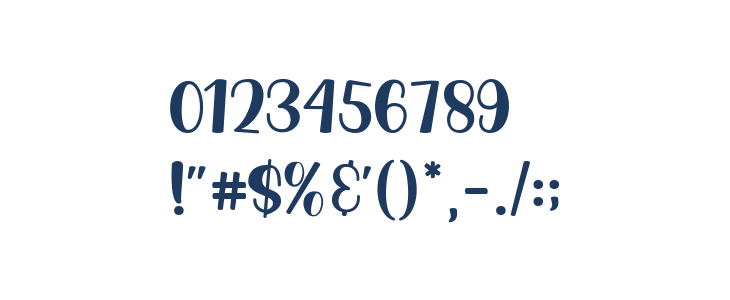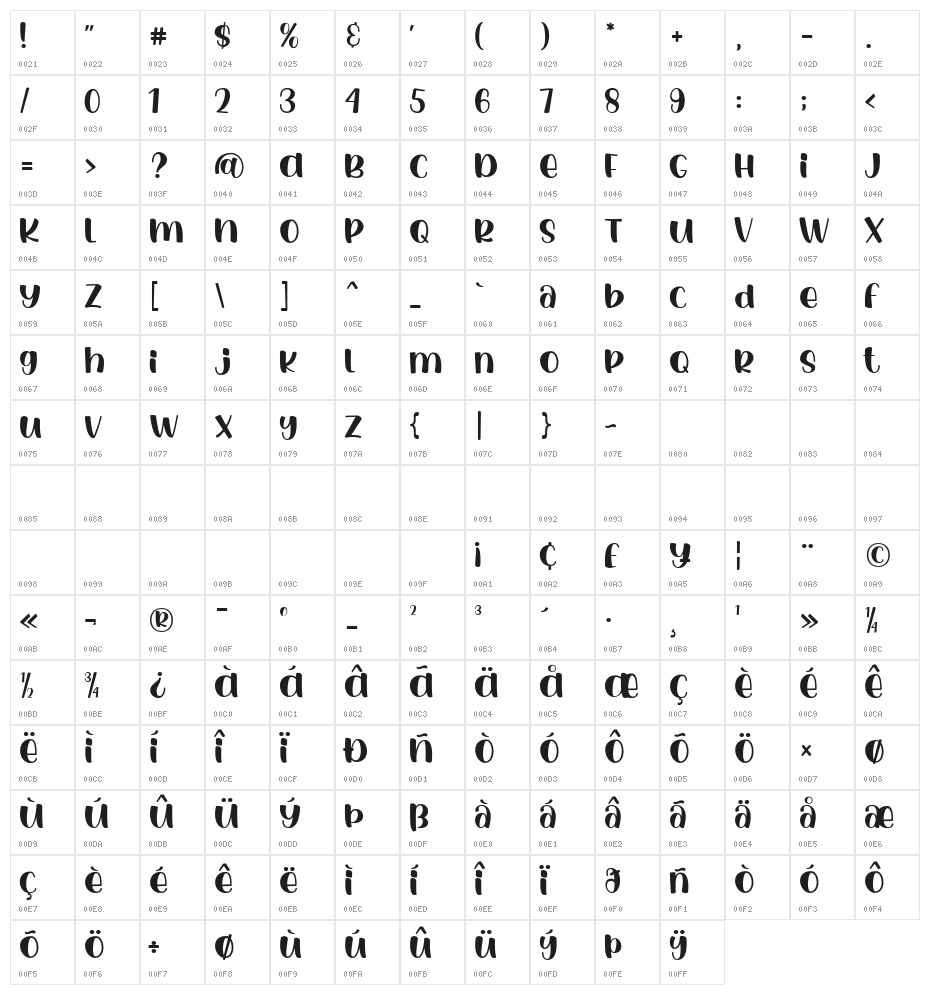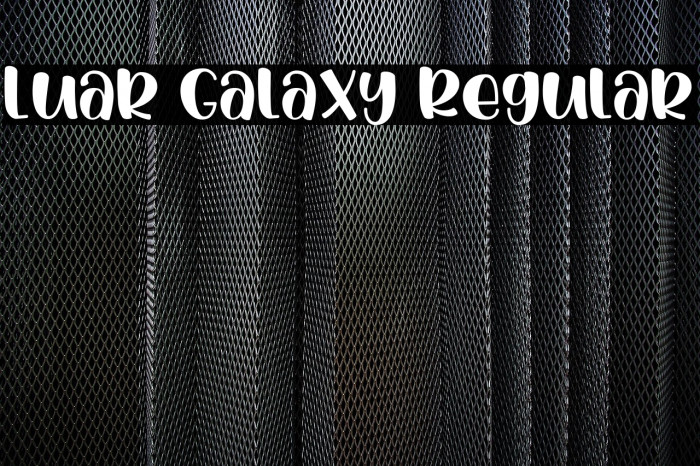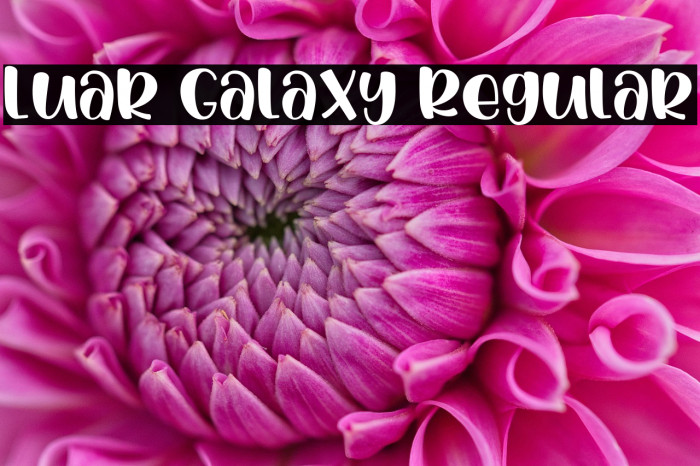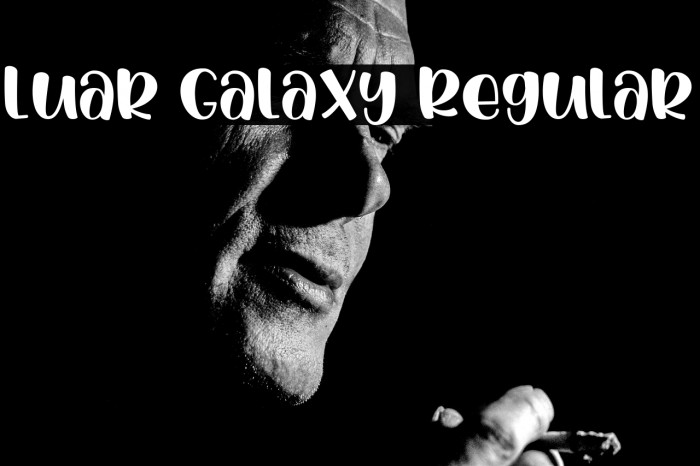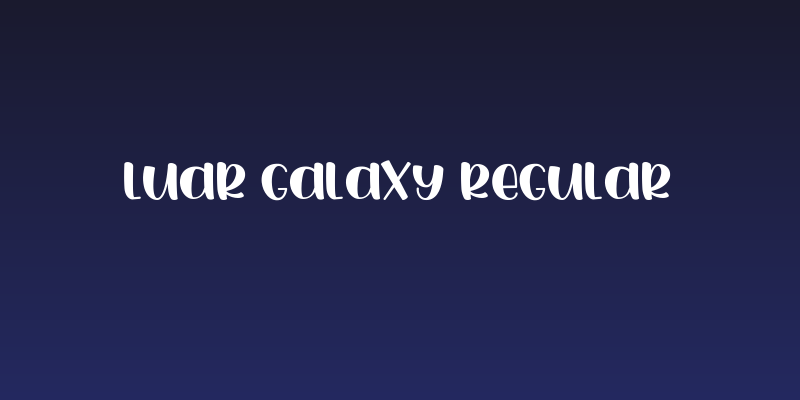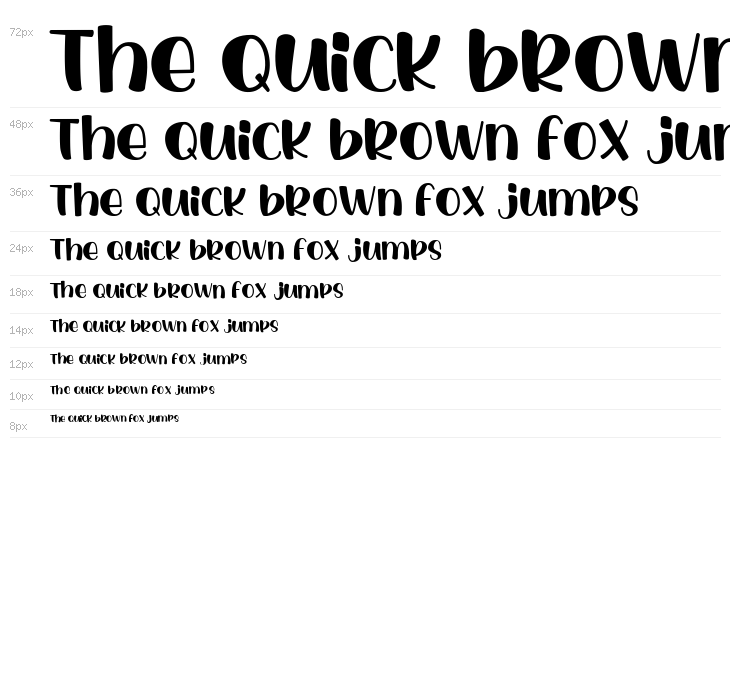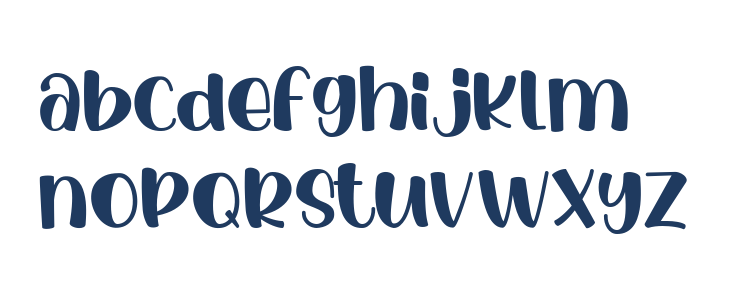
Luar Galaxy Regular Font
Luar Galaxy Regular Description
This font features a playful and bold script style with a modern twist. The characters are rounded and have a flowing, cursive appearance, giving them a friendly and approachable look. The uppercase letters maintain a consistent height, while the lowercase letters have a slight slant, adding to the dynamic feel. The numbers are equally bold and rounded, ensuring readability. Special characters are designed to match the overall aesthetic, making the font versatile for various uses. The strokes are thick, providing a strong visual impact, while the spacing between characters is balanced to maintain legibility.
| Proposed Projects | Ideal for branding projects, playful invitations, children's books, and social media graphics. |